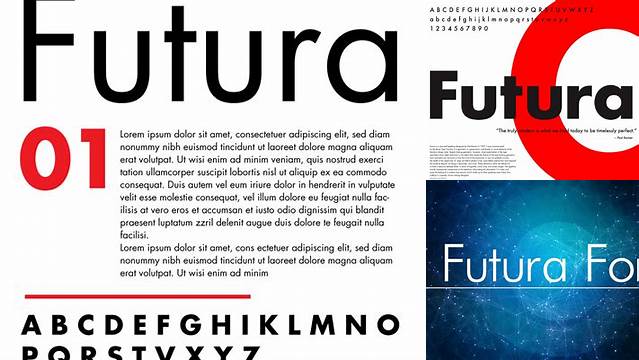
Hey everyone! Let's dive into the awesome world of the Futura font family, specifically focusing on the Futura Thin Condensed Medium styles. This article is your one-stop shop for a free download, a deep dive into the font's features, and some cool tips on how to use it effectively. Whether you're a seasoned designer or just starting out, you'll find something valuable here. So, buckle up, grab your favorite drink, and let's get started! We'll cover everything from the basics to some pro tips, making sure you know everything there is to know about Futura, especially the Thin, Condensed, and Medium variations. The goal? To help you create stunning designs using this timeless typeface. Ready to unleash your creativity? Let's go!
Futura Font: A Brief History and Overview
Alright, before we jump into the nitty-gritty of Futura Thin Condensed Medium font free download options and usage, let's take a quick history lesson, shall we? Futura is a geometric sans-serif typeface designed by Paul Renner in 1927. Yep, it's been around for a while! Inspired by the Bauhaus design style, Futura quickly became a favorite among designers for its clean lines, modern aesthetic, and versatility. Think about its use in logos like Volkswagen, Supreme, and Louis Vuitton, to name a few. It's classic! Its geometric shapes, based on perfect circles, squares, and triangles, give it a distinct, almost futuristic feel, hence the name. It's one of those fonts that just works in a variety of contexts. From headlines to body text, Futura has proven to be a workhorse in the design world. Its legibility, even in smaller sizes, makes it a great choice for everything from websites to print materials. The different weights and styles within the Futura family offer designers a vast array of options, making it adaptable to various design projects. This includes the elegant Futura Thin, the space-saving Futura Condensed, and the balanced Futura Medium. The Futura Thin Condensed Medium font family specifically is a great choice when you need a modern, clean look with a touch of sophistication. Let's explore the nuances and features that make this font family so special.
Characteristics of Futura Thin, Condensed, and Medium Styles
Okay, let's dig into what makes the Futura Thin Condensed Medium styles of the font family unique. Futura Thin is known for its delicate and elegant appearance. It's ideal for headlines and titles where you want to convey a sense of sophistication and modernity. The thin strokes give it a light, airy feel, making it perfect for projects where you want to avoid a heavy look. Futura Condensed, on the other hand, is all about efficiency. Its space-saving design makes it perfect for layouts where space is at a premium. It's a great choice for subheadings, captions, or any text that needs to fit into a tight space while maintaining readability. Finally, Futura Medium is the balanced weight of the three. It's not as delicate as Thin, nor as compact as Condensed. This style offers a solid, readable presence. It's suitable for body text, headlines, and various design applications where a clear, bold impact is required. Each of these styles brings its own personality to the table. Whether you’re after elegance, efficiency, or balance, the Futura Thin Condensed Medium family has you covered. Understanding these nuances will help you choose the right style for your design.
Comparing and Contrasting the Different Styles
When you're working with the Futura Thin Condensed Medium font, it's vital to understand the differences between these styles. Let's start with Futura Thin. As mentioned before, it’s the most delicate of the three, perfect for creating a sense of elegance and minimalism. Use it for headings that require a refined touch. Next, Futura Condensed is all about space-saving. Its narrow form makes it ideal for fitting more text into a smaller space. It works great for subheadings, where you need to convey information efficiently without taking up too much room. Finally, Futura Medium is the workhorse. It provides a strong visual presence, balancing readability with impact. It's a reliable choice for body text, especially if you need a contemporary look. Think of it this way: Futura Thin is for subtlety, Futura Condensed is for efficiency, and Futura Medium is for everything in between. The contrast between these three styles allows you to create a design with depth and visual interest. Mixing and matching these styles can create a dynamic and engaging design. Choosing the right style is key. Your choice should depend on the purpose of the text and the overall design goals. It's essential to experiment and find what works best for each project. The Futura Thin Condensed Medium font family provides a versatile range of options for every design need.
Using Futura Thin Condensed Medium in Your Design Projects
Now, let's talk about how to actually use the Futura Thin Condensed Medium font free download in your projects. First, remember that these styles are best suited for different purposes. Futura Thin shines in headlines, logos, and any area where you want to add a touch of elegance. Futura Condensed is perfect for tight spaces, such as subheadings, labels, and product descriptions. And Futura Medium works great in headlines and body text, especially when you want to create a clean, modern look. Also, consider the overall tone and style of your design. The geometric, sans-serif nature of Futura lends itself well to modern, minimalist designs. It can also add a touch of sophistication to a project. When using the Futura Thin Condensed Medium font, make sure to pay attention to the kerning (the space between letters) and leading (the space between lines). Proper kerning and leading can greatly enhance readability and visual appeal. Experiment with different font sizes to find what works best for your design. Finally, be mindful of the color combinations you use. Futura looks great with bold, contrasting colors, as well as with more subtle, muted tones. With a bit of practice, you'll master the art of using Futura Thin Condensed Medium font free download to create stunning and eye-catching designs!
Recap of Key Takeaways